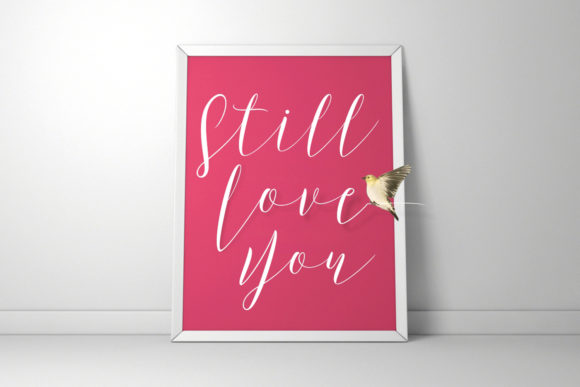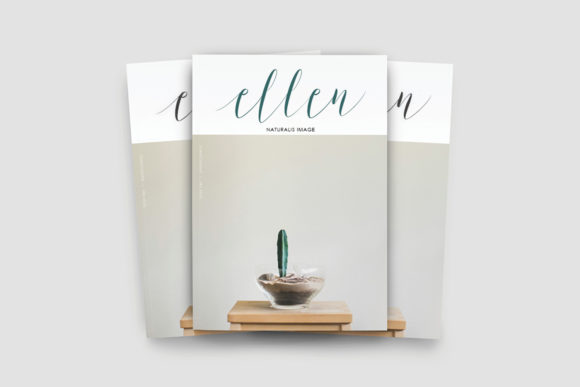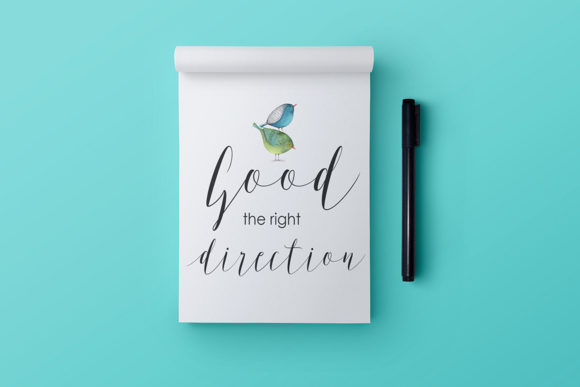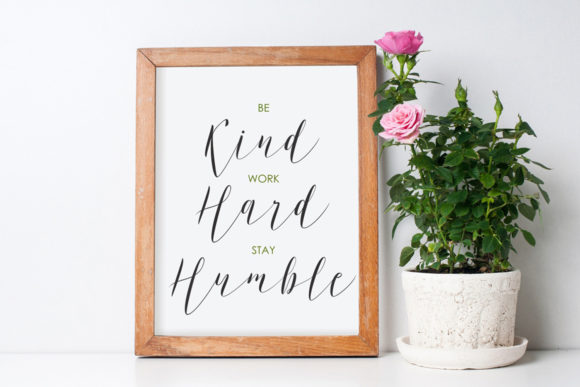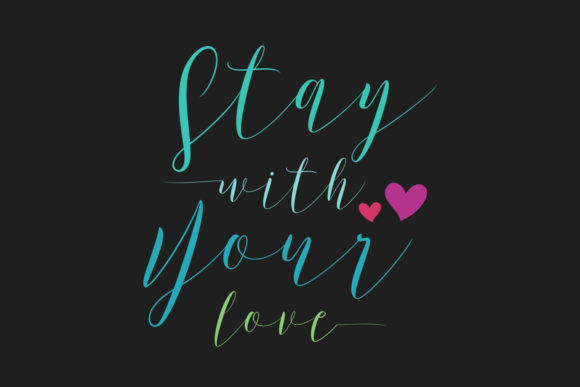
Introduction to Murano Font
Murano is a delicate and modern script font that is inspired by flat-top calligraphy and will look very beautiful when featured in your design.
This font will be perfect for many different ex projects: quotes, blog headers, posters, weddings, branding, logos, fashion, clothing, letters, invitations, stationery, etc This font is PUA encoded which means you can access the available glyphs and swashes with ease.